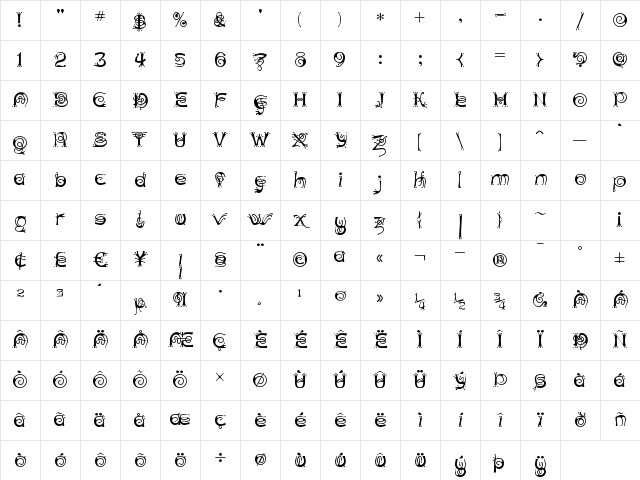
Complete Antherton Cloister Regular glyph index. Displaying only characters natively supported by Antherton Cloister Regular font.
Antherton Cloister is a composed and adaptable typeface that performs quietly and consistently across a wide range of design contexts.